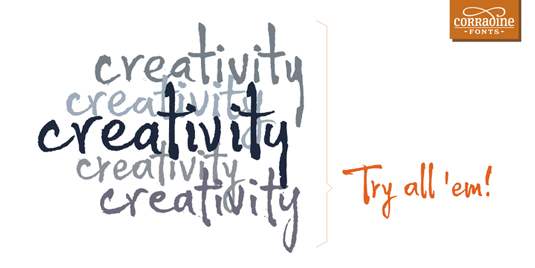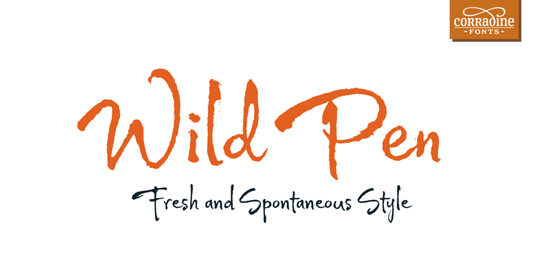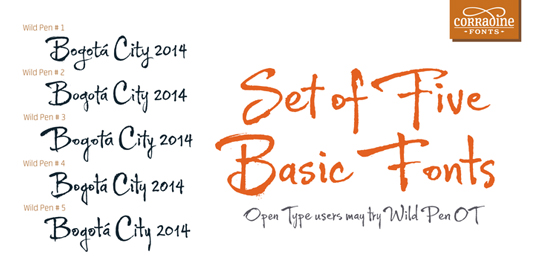
Font of the day: Wild Pen
Wild Pen by Manuel Eduardo Corradine
This handwritten typeface, Wild Pen, was created through an experimental pen made from recycled plastic bottle. A product of designer Manuel Eduardo Corradine, the family consists of five different styles, all of which allow presence of drops and blots of ink for an authentic feel.